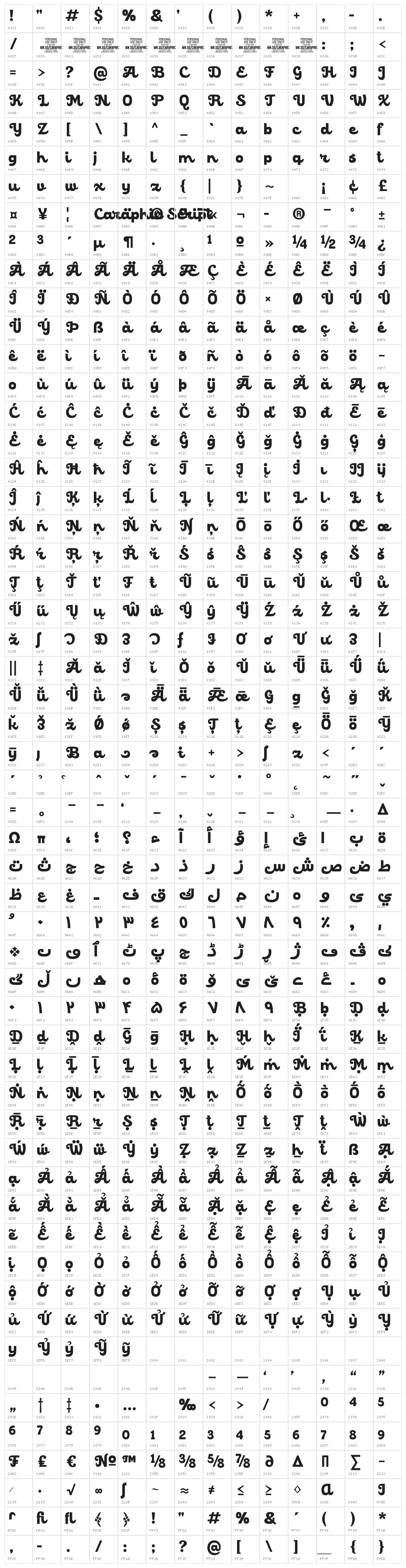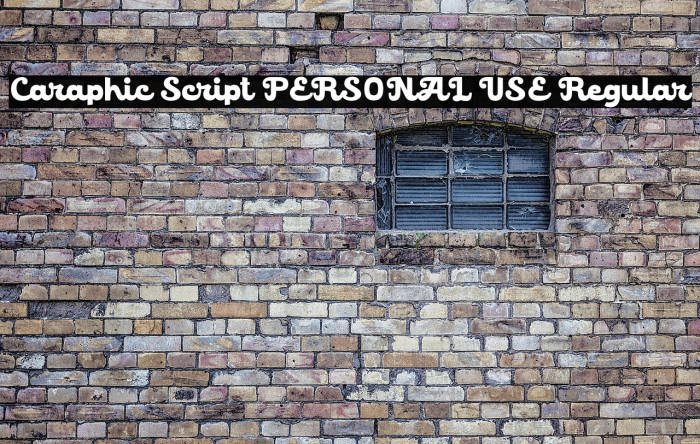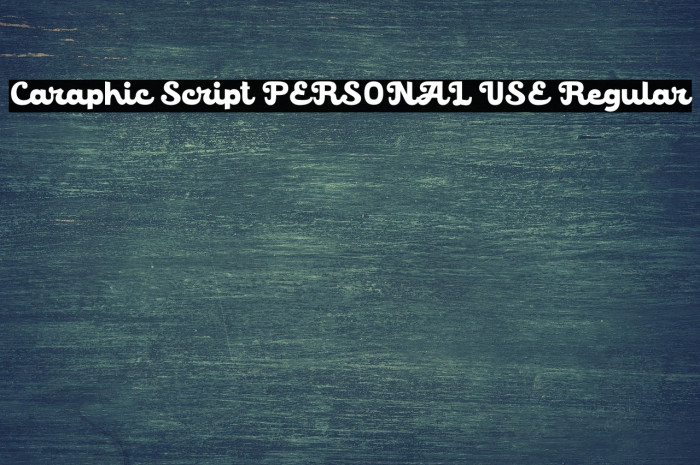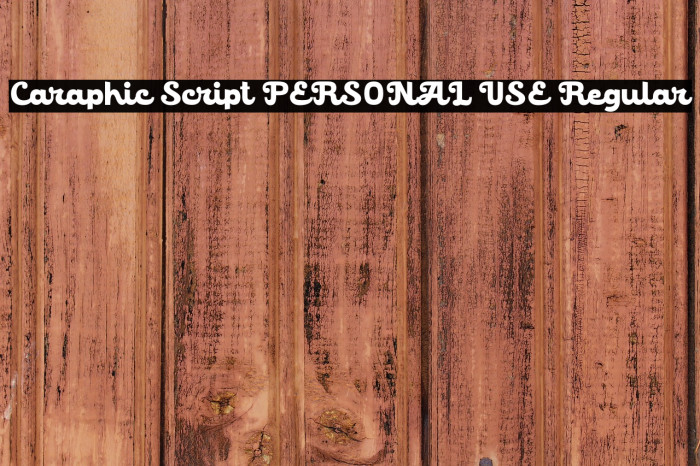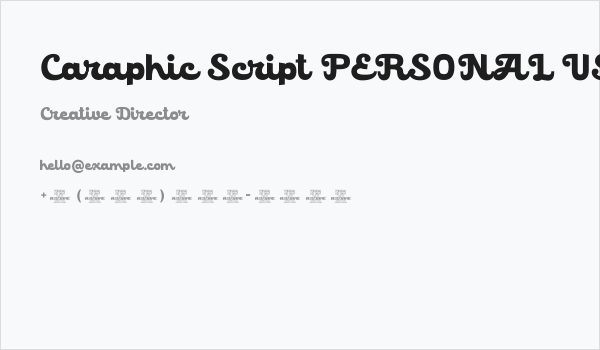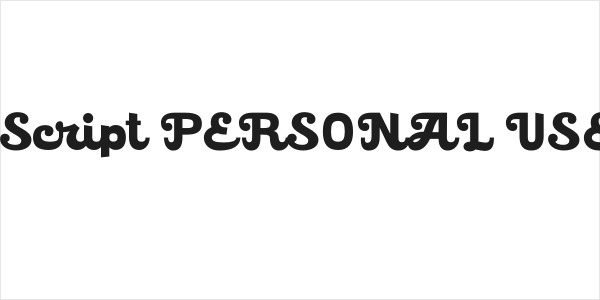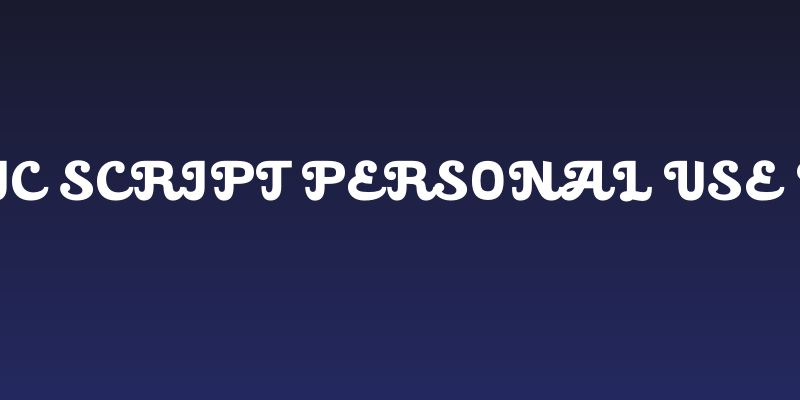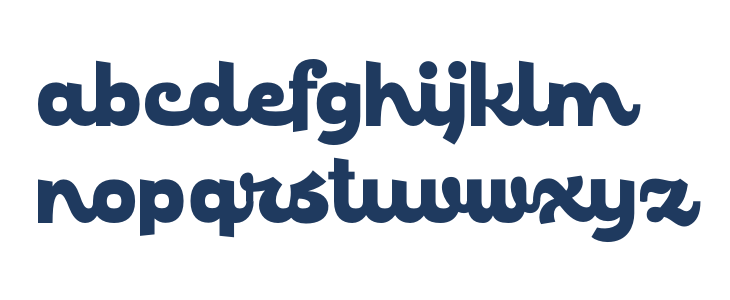
Caraphic Script PERSONAL USE Regular Font
Caraphic Script PERSONAL USE Regular Description
This font features a bold and playful script style, characterized by its thick, rounded strokes and smooth curves. The uppercase letters are particularly distinctive, with a whimsical flair that adds a touch of personality. The lowercase letters maintain a consistent flow, enhancing readability while preserving the font's unique charm. The numbers and special characters are designed to match the overall style, ensuring uniformity across all text elements. This font's bold presence makes it suitable for eye-catching designs.